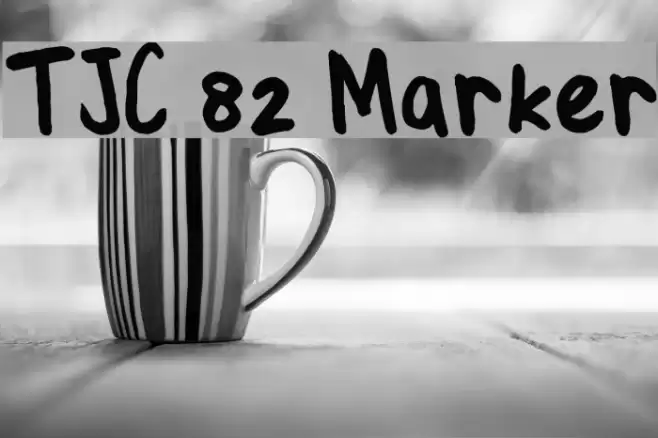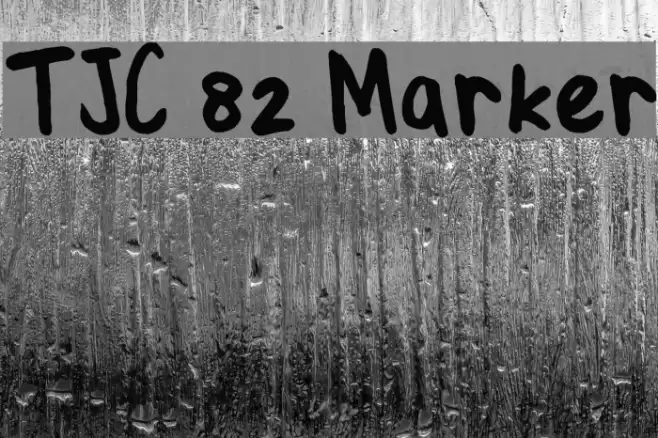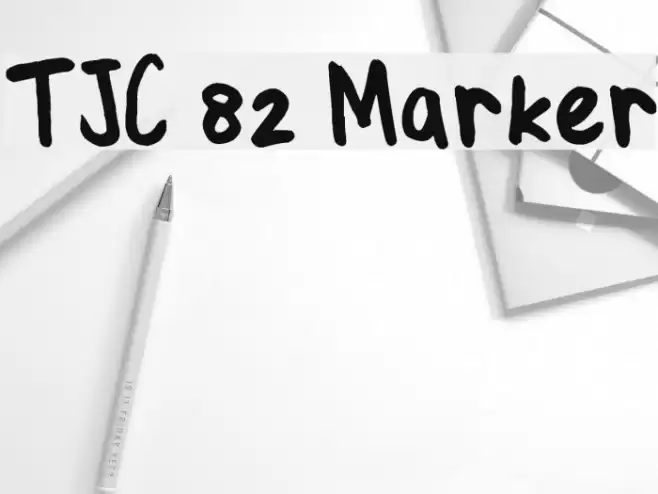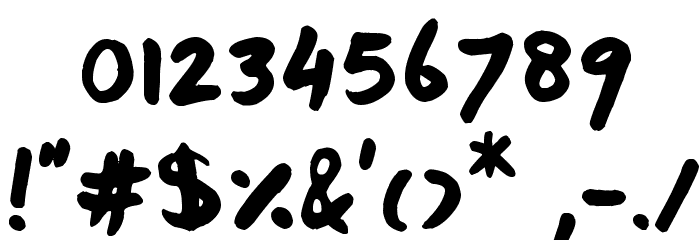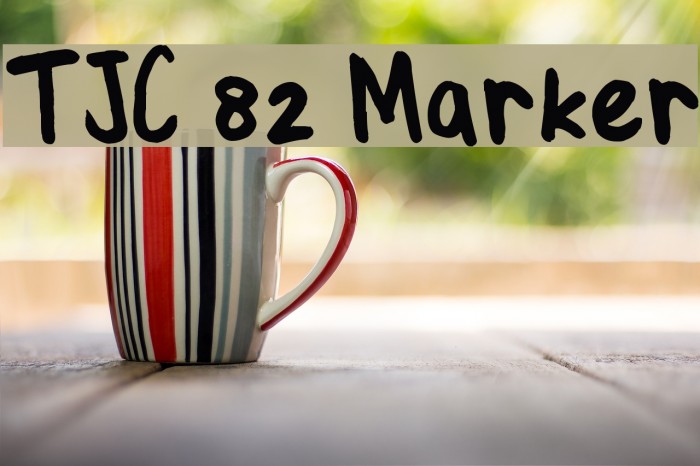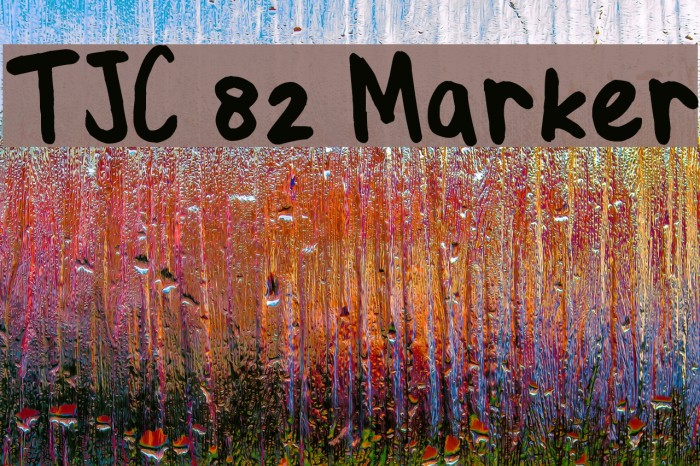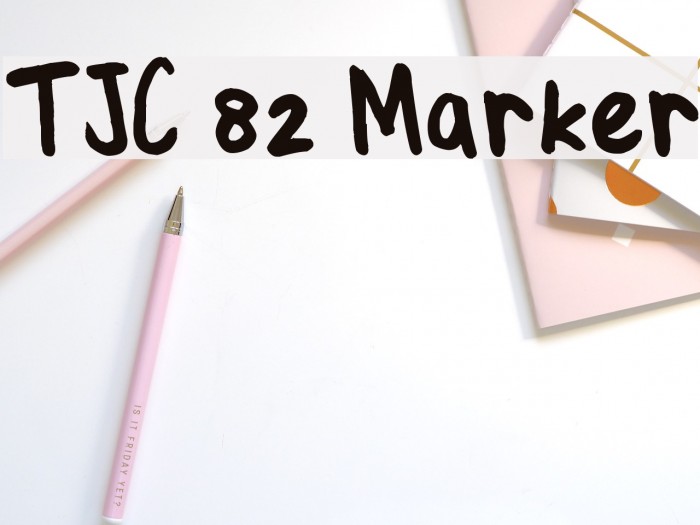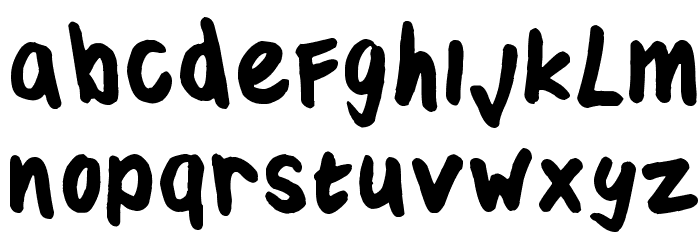
TJC 82 Marker Font
TJC 82 Marker Description
This font exhibits a playful and casual handwritten style, reminiscent of marker pen strokes. The characters are bold and slightly irregular, giving them a lively and informal appearance. The uppercase and lowercase letters maintain a consistent thickness, with rounded edges that enhance the approachable feel. Numbers and special characters are crafted with the same playful touch, ensuring uniformity across the set. The overall design is energetic and friendly, making it suitable for projects that require a personal and informal touch.
A playful, handwritten marker-style font with bold, rounded characters from Handwritten fonts.
- Proposed Projects: Ideal for children's books, casual invitations, posters, and creative branding projects.
- Overall Style: Casual, Playful
- Use Case: Headlines, Posters, Informal Text